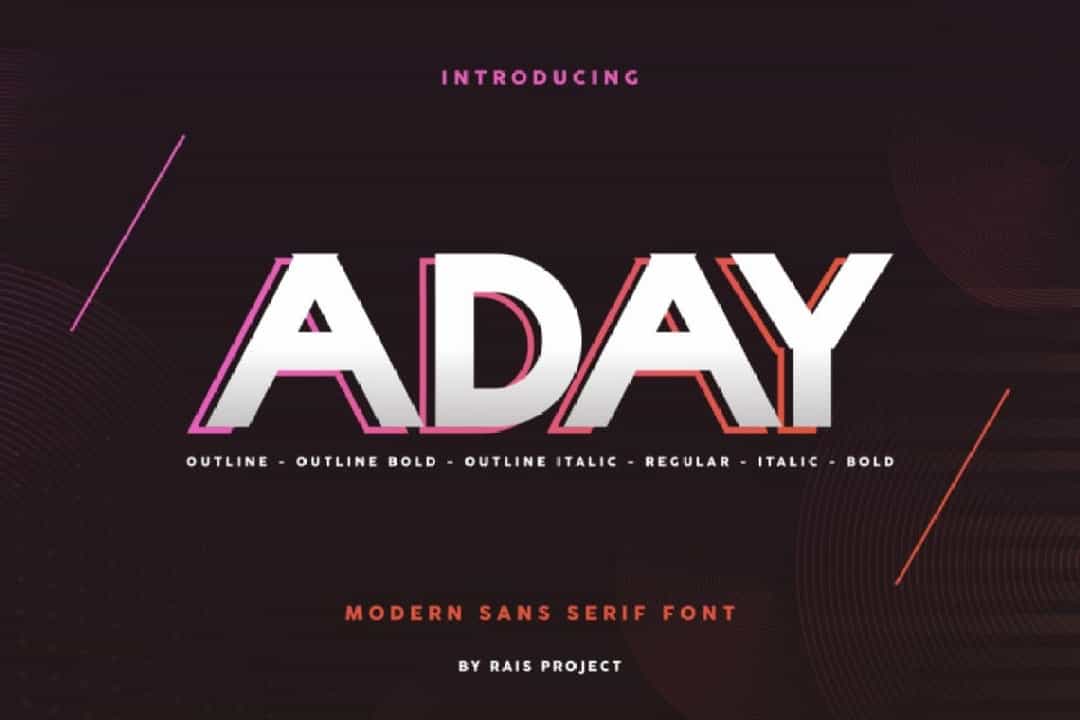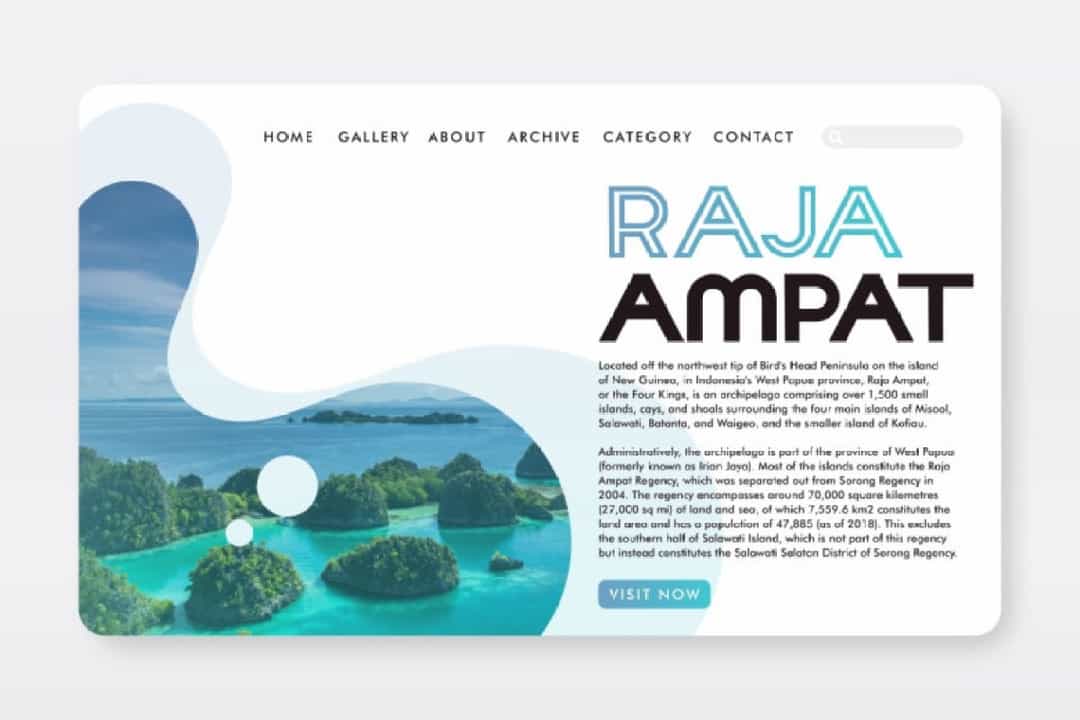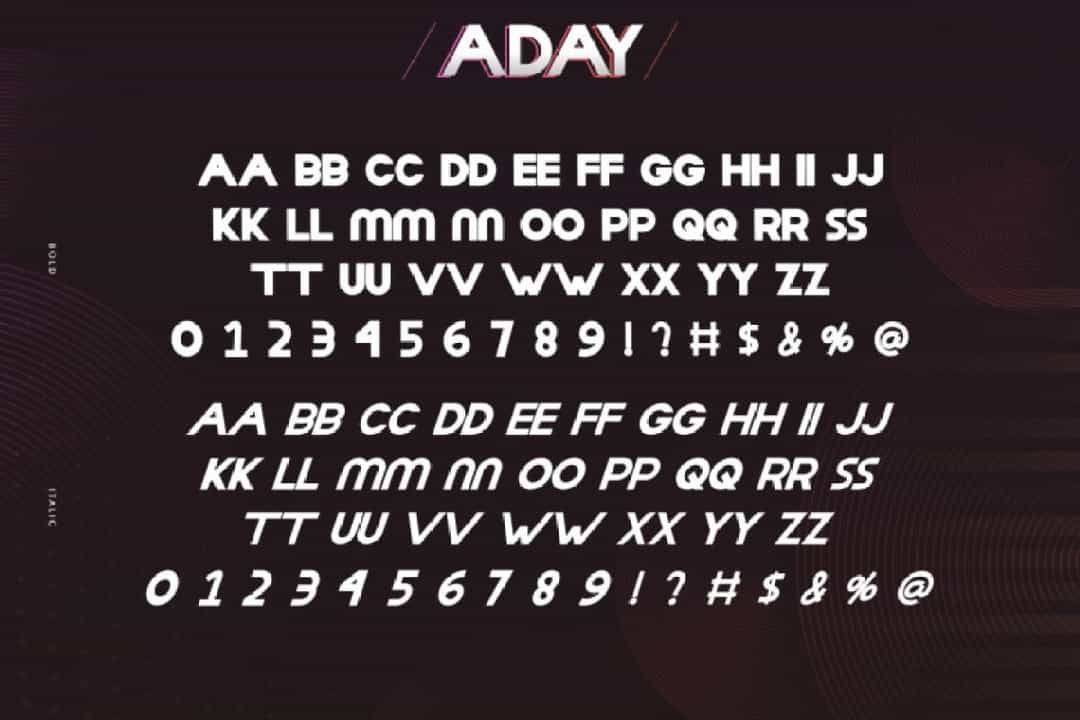
Rais Project has designed Aday as an original Sans Serif display font family for your project needs in headlines, promotions, and event branding, advertisements, magazines and signage, invitations, stationery, social media posts, labels, or any other special design projects. Areas that can use Aday include Cosmetic Technology, beauty magazine articles, Game music or sports related topics and the like.